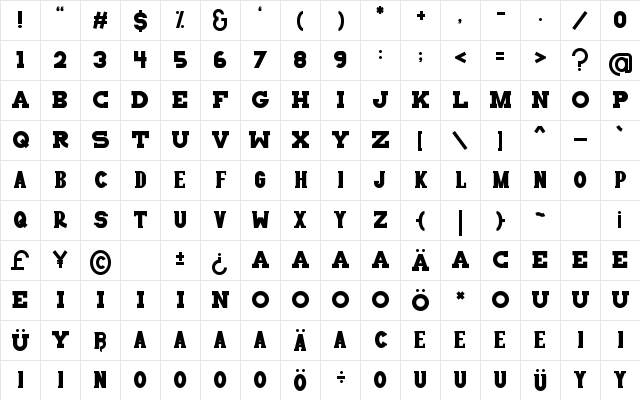
MetroBarat Regular
Foundry: Masyafi Studio
Designer: Masyafi Studio
Complete MetroBarat Regular glyph index. Displaying only characters natively supported by MetroBarat Regular font.
Design Context for MetroBarat
MetroBarat is a composed and adaptable typeface that performs quietly and consistently across a wide range of design contexts.
Pro Tip: Use MetroBarat in both headline and body roles to test its range before committing to a single application.
Who designed the MetroBarat Regular font?